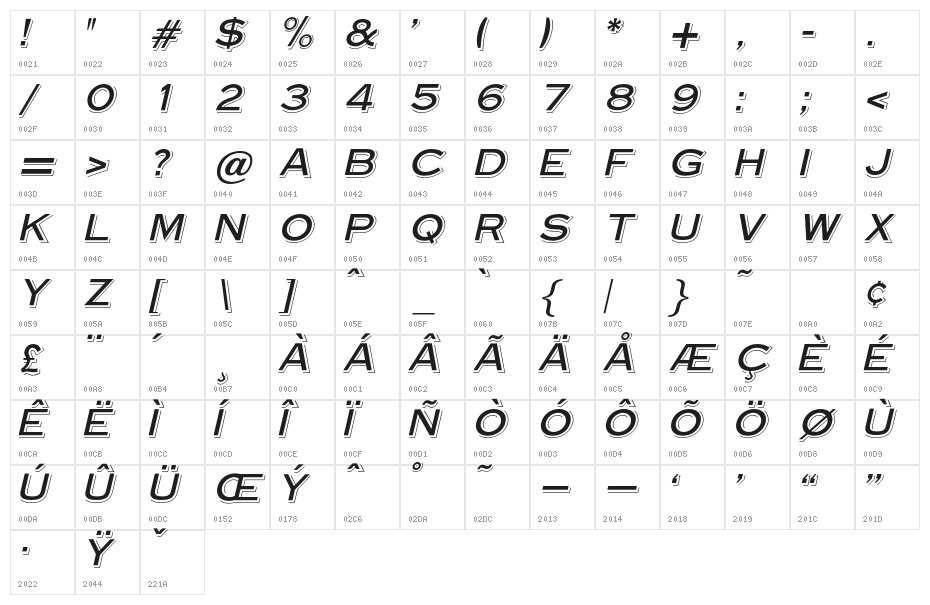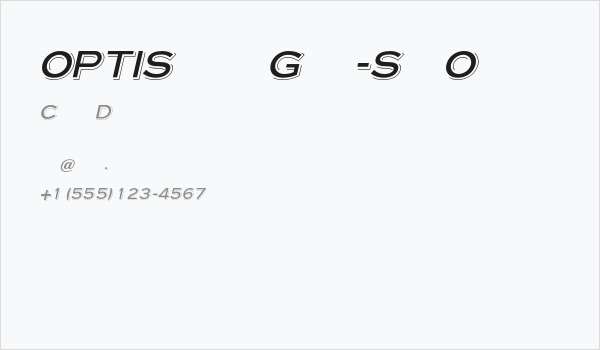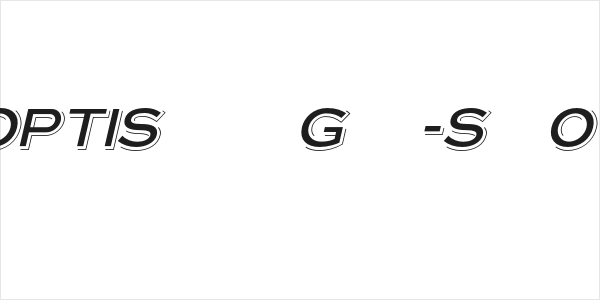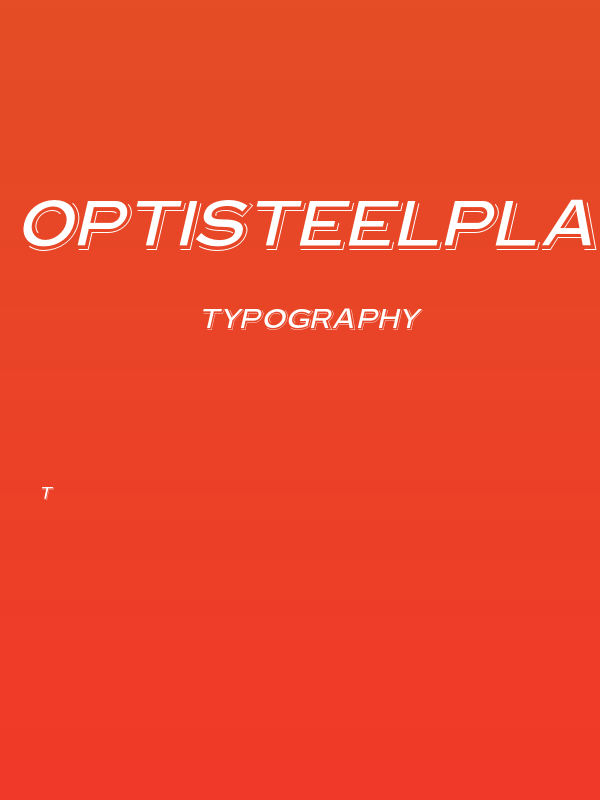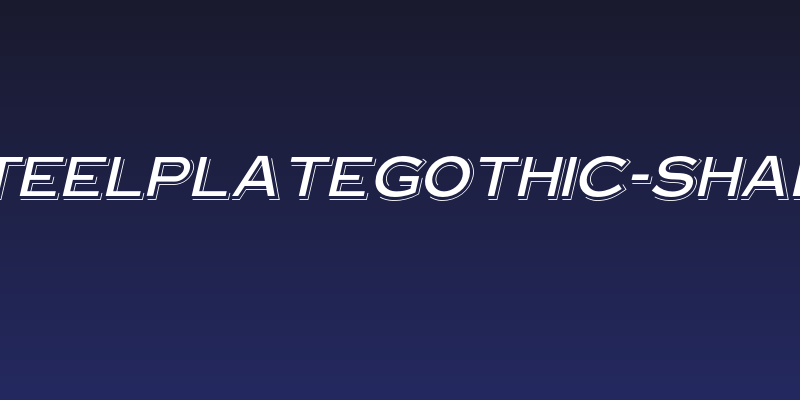
OPTISteelplateGothic-ShadeObl Font
OPTISteelplateGothic-ShadeObl Description
This font features a bold, industrial aesthetic with a three-dimensional effect created by its shading. The uppercase letters are strong and geometric, giving a sense of solidity and strength. The characters have a consistent width, and the shading adds depth, making the text appear as if it's embossed or engraved. The numbers and special characters maintain this robust style, ensuring a cohesive look across all glyphs. The font's design is reminiscent of industrial signage or vintage machinery, making it ideal for projects that require a bold and impactful visual statement.
| Overall Style | Industrial, Vintage |
| Proposed Projects | Ideal for branding, signage, posters, and any project requiring a bold, industrial look. |